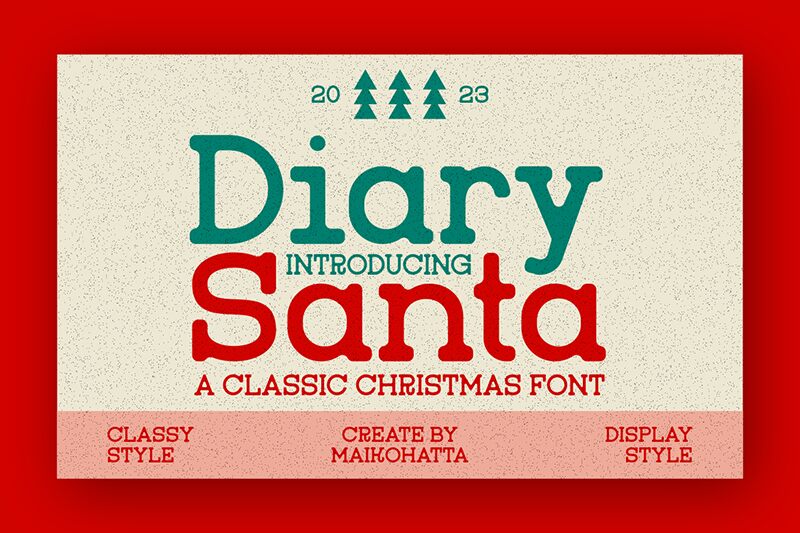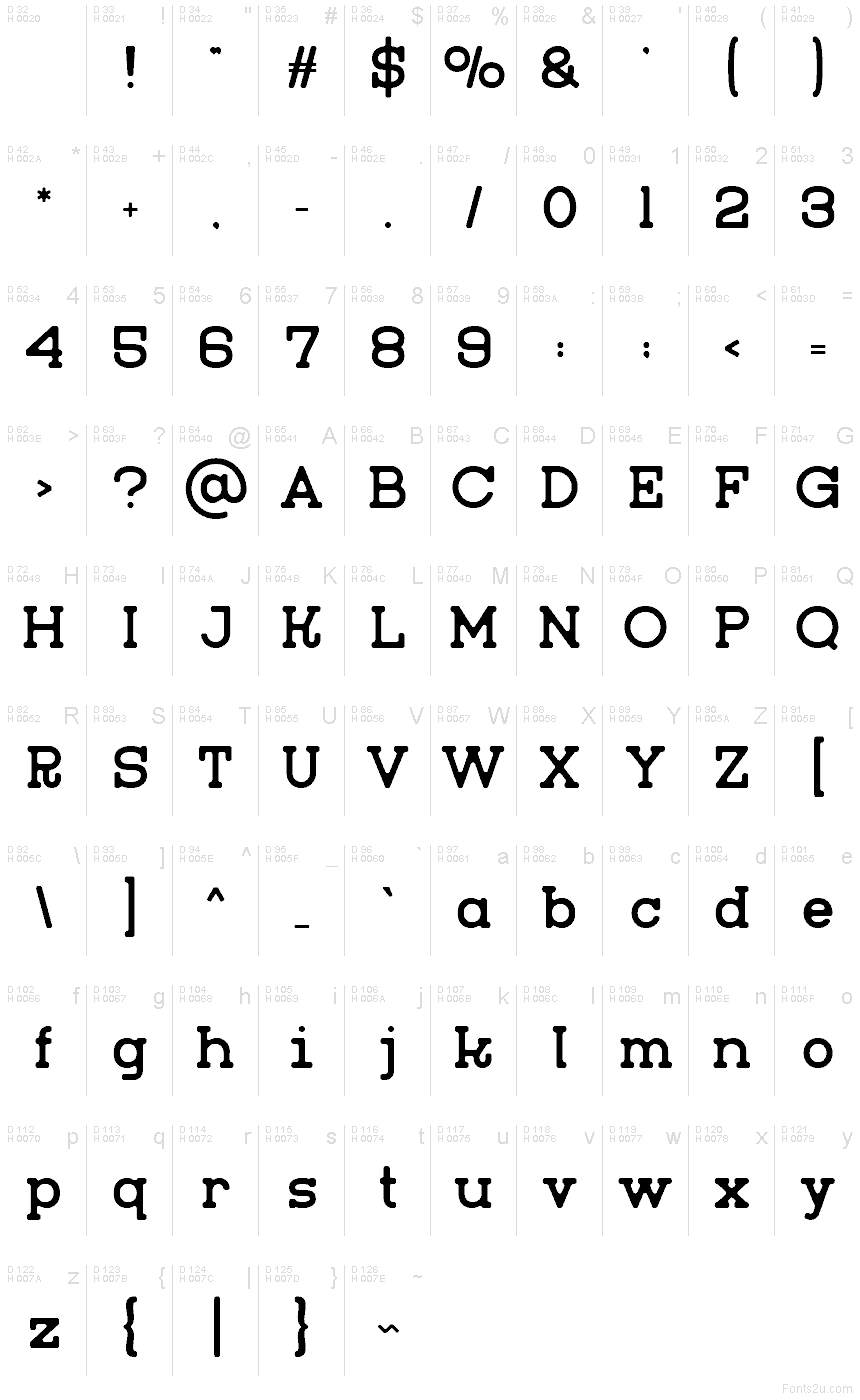
Diary Santa
Diary Santa font by Gilang Ternadho is a free serif typeface that wraps your words in a cozy, storybook warmth. The letters are rounded and softly blocky, like candy pieces stamped in ink, giving headlines a friendly, hand-touched feel without losing structure. It carries a cheerful, wintry charm that feels right at home beside snowflakes, mittens, and twinkling lights.
Using Diary Santa, holiday cards, kids’ book covers, classroom posters, gift tags, seasonal packaging, and festive social graphics all gain the same inviting, homespun character. This free font works beautifully at larger sizes where its chunky curves can really show, and it pairs easily with a clean geometric sans for small supporting text or captions.